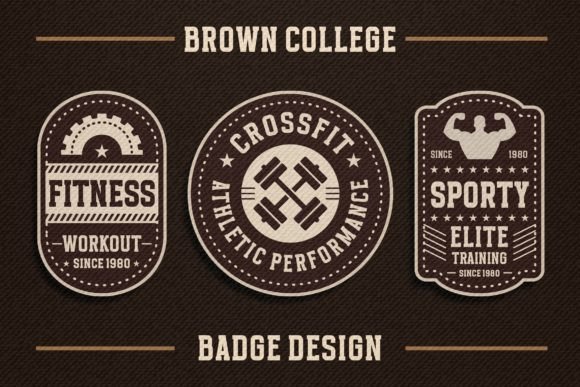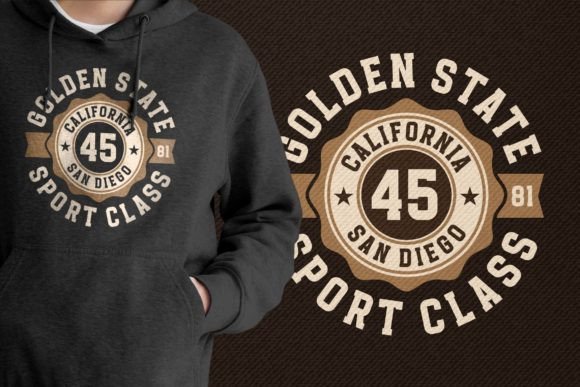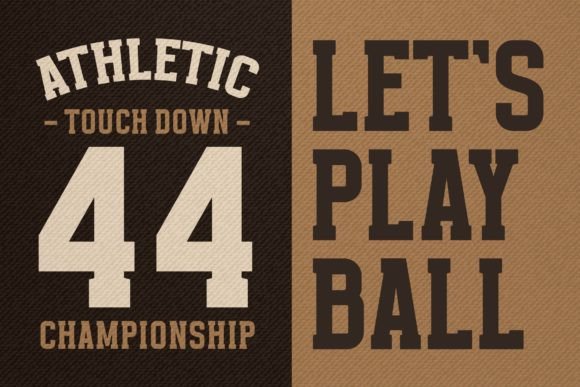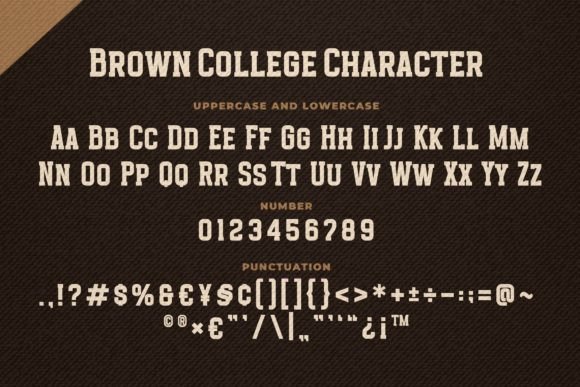
The Ultimate Font for Creative Projects: Brown College Font
What is Brown College Font?
Brown College Font is an authentic sports display font inspired by college typography. It’s perfect for creating attractive and playful designs such as book covers, posters, packaging, merchandise, logotypes, and more. With its unique and energetic vibe, this font is sure to add a touch of creativity and imagination to your projects.
Honest Review
- ✨ Unique and authentic college-inspired typography
- ✅ Highly legible and versatile
- 🎉 Perfect for creating playful and eye-catching designs
While the Brown College Font is an excellent choice for many projects, there are a few things to keep in mind:
- 🤔 Limited suitability for formal or serif-dominated designs
- ⚠️ May require adjustments for optimal kerning and spacing
The Brown College Font was inspired by the typography of college sports teams. The designer aimed to create a font that captures the spirit of college sports and the energy of young athletes. The result is a unique and authentic font that’s perfect for creating playful and eye-catching designs.
Q: What type of designs is the Brown College Font best suited for?
A: The Brown College Font is perfect for creating attractive and playful designs such as book covers, posters, packaging, merchandise, logotypes, and more.